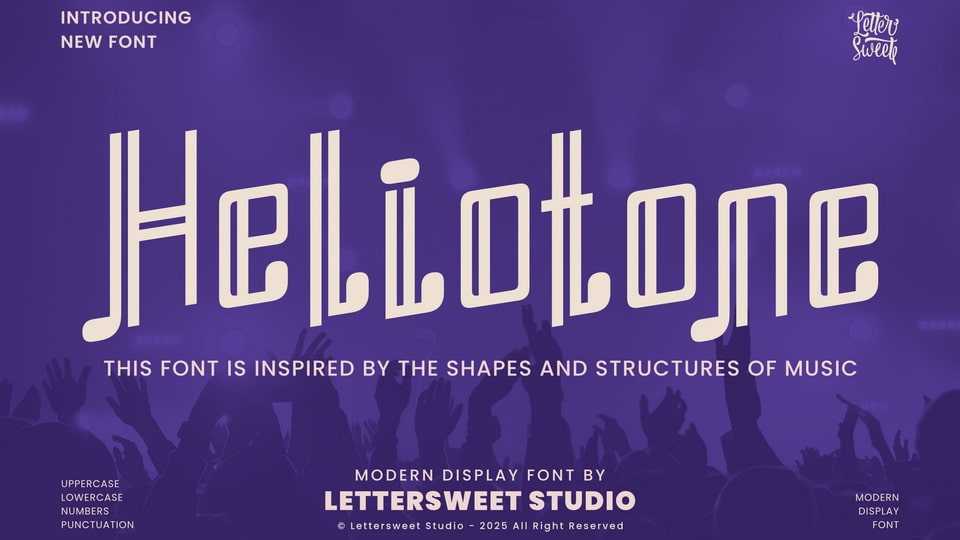
Download Heliotone font, a modern music display typeface with a bold, futuristic groove—perfect for anyone who wants their design to feel like a live concert.